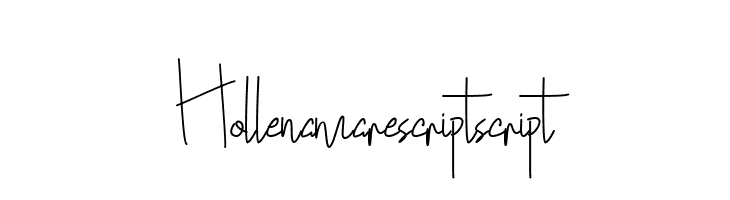
A playful and casual script font with thin, flowing strokes and a hand-drawn feel.
A dynamic handwritten font with fluid, continuous strokes and a modern flair.
A flowing cursive script with elegant, connected letters.
A playful and elegant script font with smooth, flowing lines and decorative flourishes.